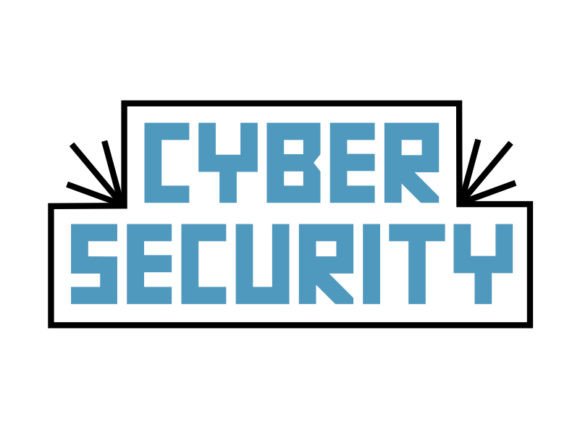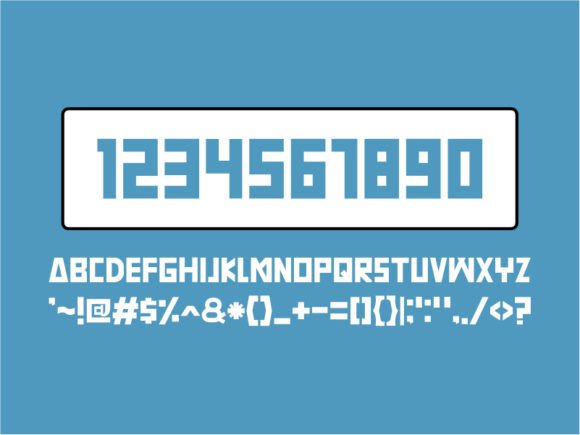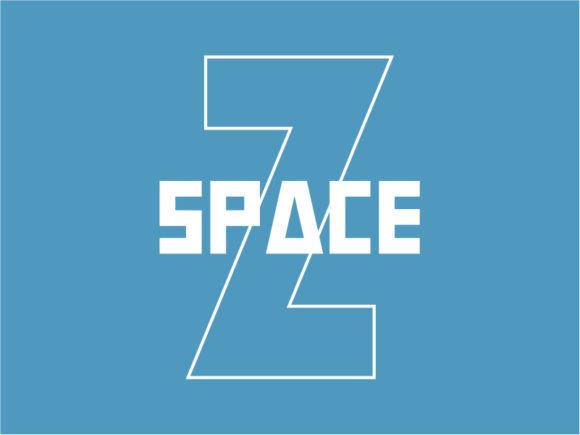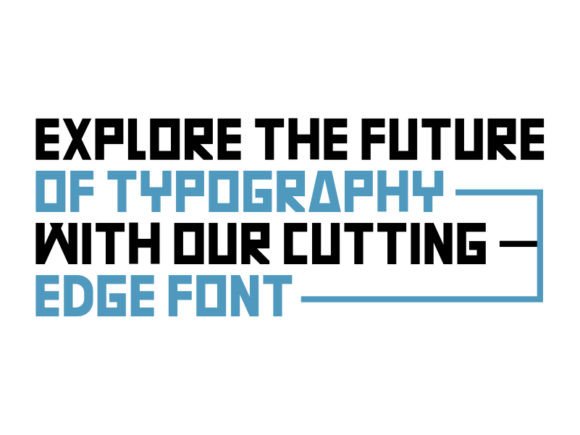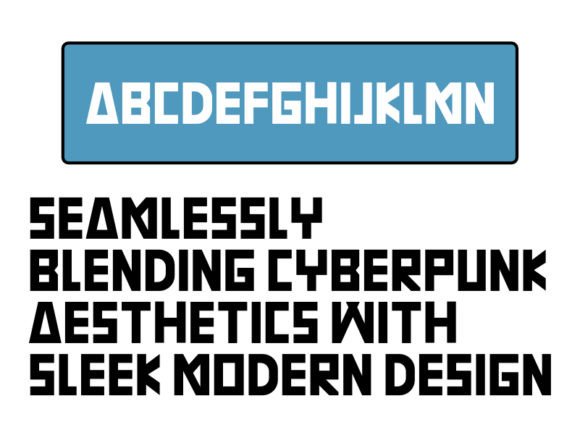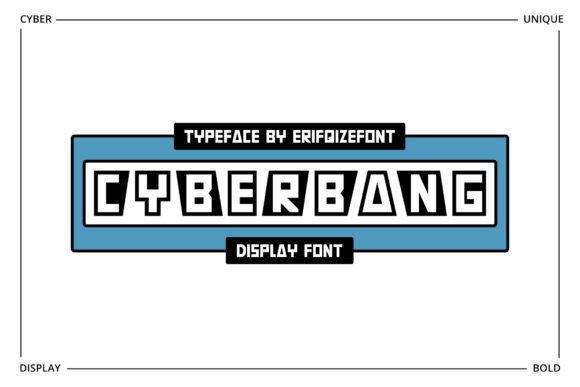
The Cyberbang Font: A Bold and Edgy Addition to Your Font Library
I’ll never forget the time I was working on a project for a tech startup, and I was struggling to find the perfect font to convey their brand’s edgy and innovative personality. The client was looking for something bold, modern, and attention-grabbing, but everything I tried seemed to fall flat. That’s when I stumbled upon the Cyberbang font, and it completely transformed my design. In this article, I’ll share my experience with this cool cyber display font and explore its features, uses, and alternatives.
An Honest Review of Cyberbang
So, what makes Cyberbang so special? Here are some things I love about this font:
- ✨ Bold and eye-catching: Cyberbang is a statement font that demands attention. Its bold shape and clean lines make it perfect for headings, titles, and emphasis text.
- ✅ Versatile: Despite its bold personality, Cyberbang can be used for a wide range of topics and industries, from tech and gaming to fashion and entertainment.
- 💻 Digital-friendly: Cyberbang is optimized for digital use, with clear and legible letters that look great on screens of all sizes.
Of course, no font is perfect, and Cyberbang has a few quirks to consider:
- 🤔 Limited readability at small sizes: While Cyberbang looks great at larger sizes, it can become difficult to read at smaller sizes (e.g., body text). Use it for headlines and titles, but consider a different font for longer blocks of text.
- ⚠️ Not suitable for all languages: Cyberbang is designed for English and other Western languages, and may not work well for languages with non-Latin scripts.
A Practical Guide to Using Cyberbang
Now that we’ve covered the basics, let’s dive into some practical tips on how to use Cyberbang in your designs.
The Backstory of Cyberbang
Cyberbang was designed by a team of typographers who wanted to create a font that embodied the spirit of modern technology. Inspired by the neon lights of Tokyo’s Shinjuku district, they crafted a font that’s both bold and beautiful. With its futuristic feel and versatile design, Cyberbang is perfect for anyone looking to add a touch of cyberpunk flair to their designs.
| What is the best way to use Cyberbang in my design? | Cyberbang is perfect for headlines, titles, and emphasis text. Use it to add a bold and eye-catching touch to your design. |
| Is Cyberbang suitable for body text? | No, Cyberbang is not recommended for body text. Its bold shape and clean lines make it difficult to read at smaller sizes. |
| Is Cyberbang available in different languages? | Cyberbang is designed for English and other Western languages. If you need to use it for non-Latin scripts, you may need to use a different font or a language-specific version of Cyberbang. |